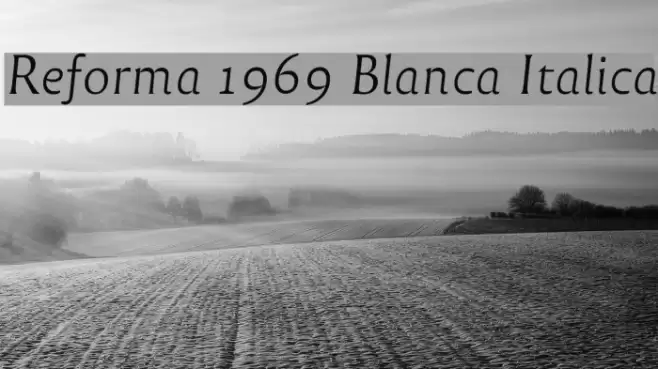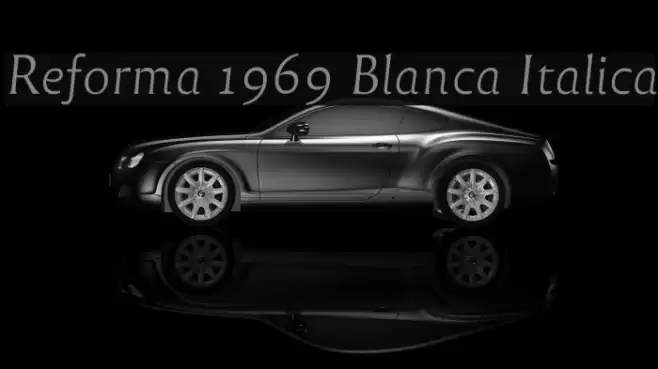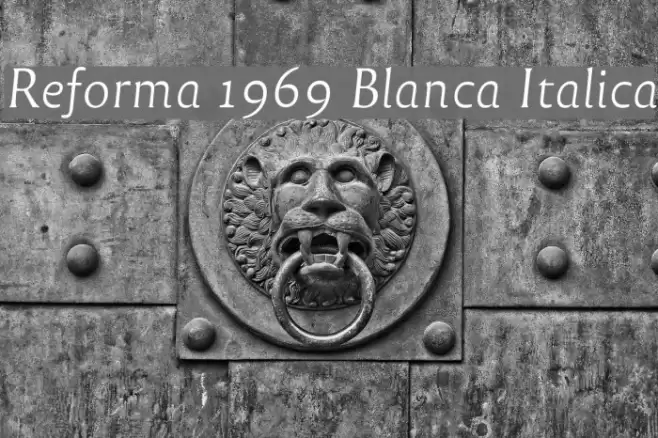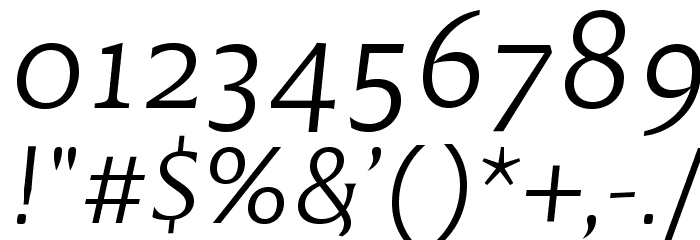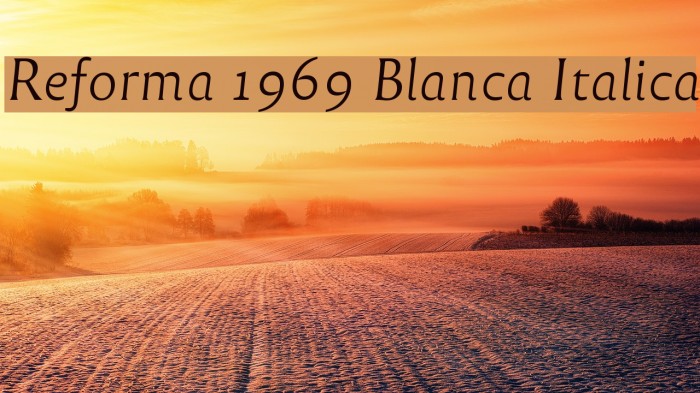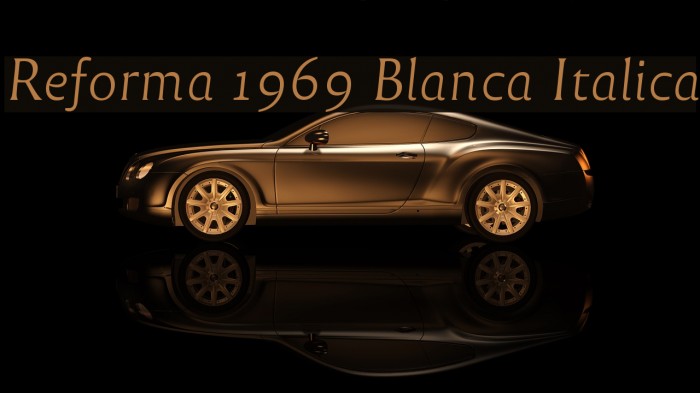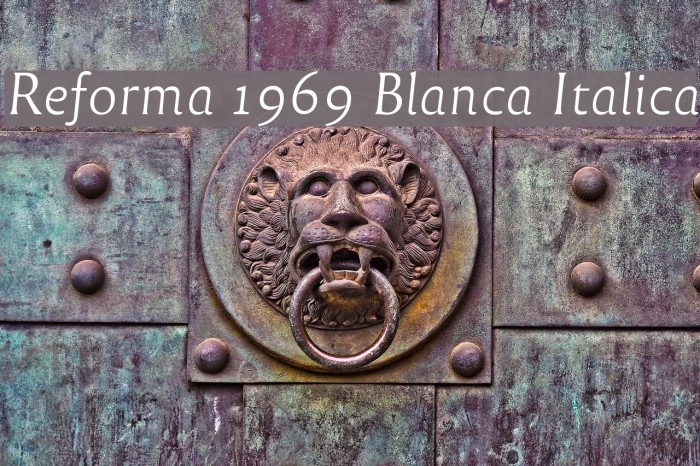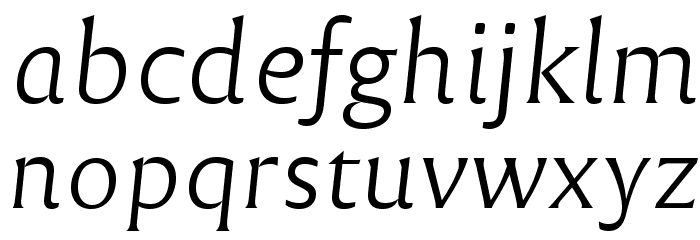
Reforma 1969 Blanca Italica Font
Reforma 1969 Blanca Italica Description
This font features a classic and elegant design with a slight italic slant, giving it a sophisticated and dynamic appearance. The characters are well-proportioned, with a moderate contrast between thick and thin strokes, enhancing readability while maintaining a stylish look. The uppercase letters are slightly taller than the lowercase, providing a sense of hierarchy and balance. The numerals are clear and distinct, making them suitable for various applications. Special characters are included, maintaining the font's cohesive style. The overall design is versatile, suitable for both formal and creative projects.
Elegant italic font with moderate contrast and classic style from Uncategorized fonts.
- Proposed Projects: Ideal for wedding invitations, elegant branding, book covers, and editorial design.
- Overall Style: Classic